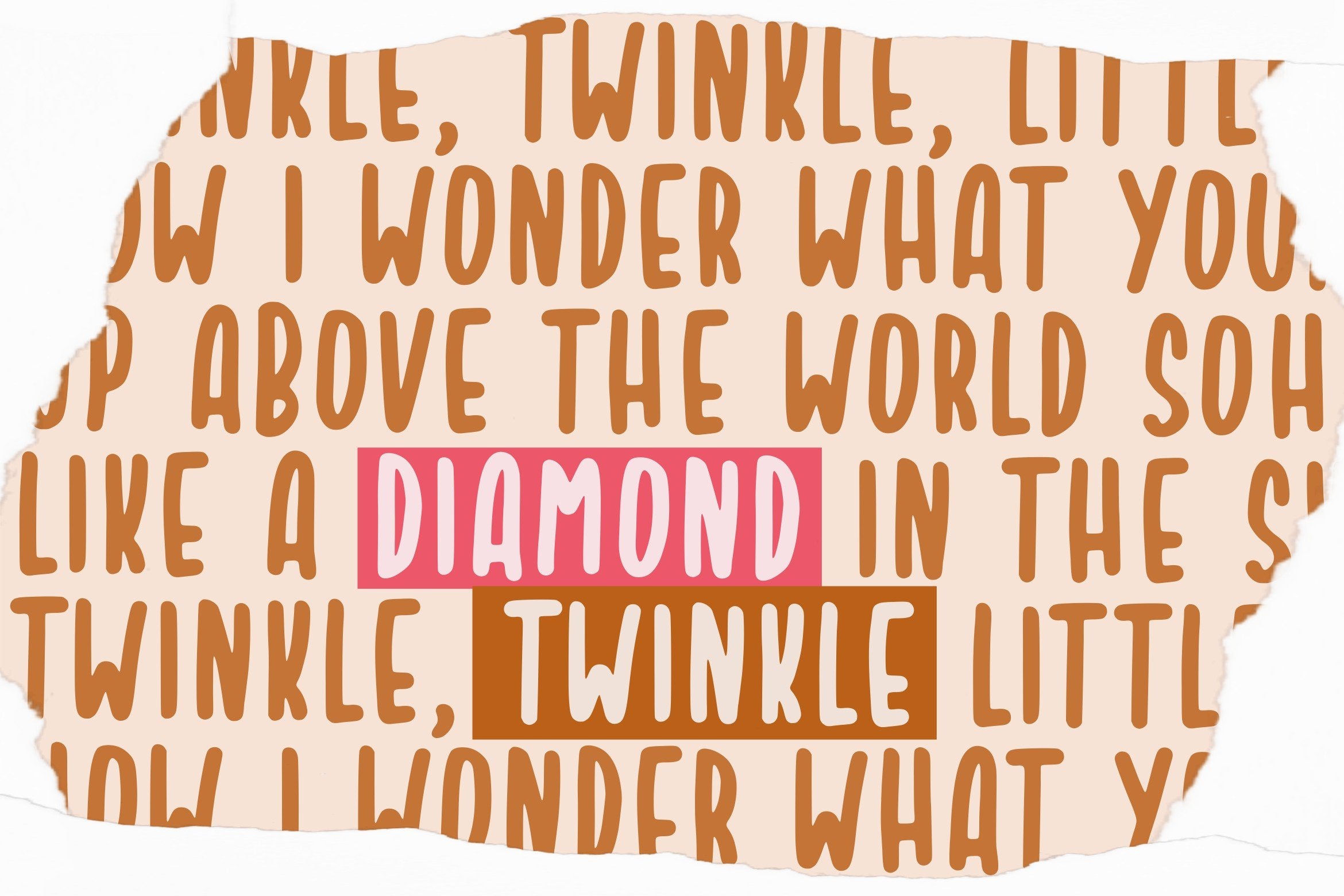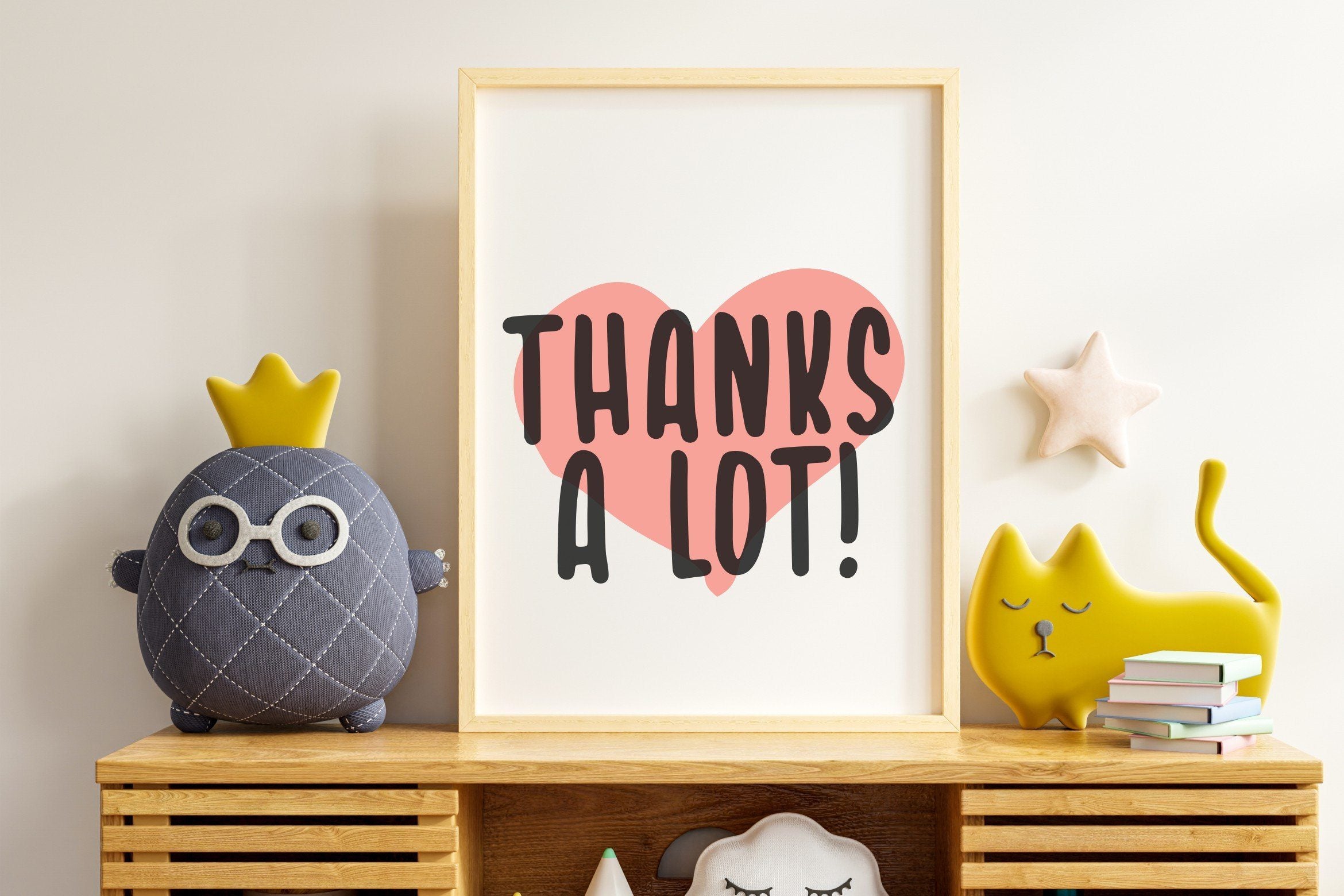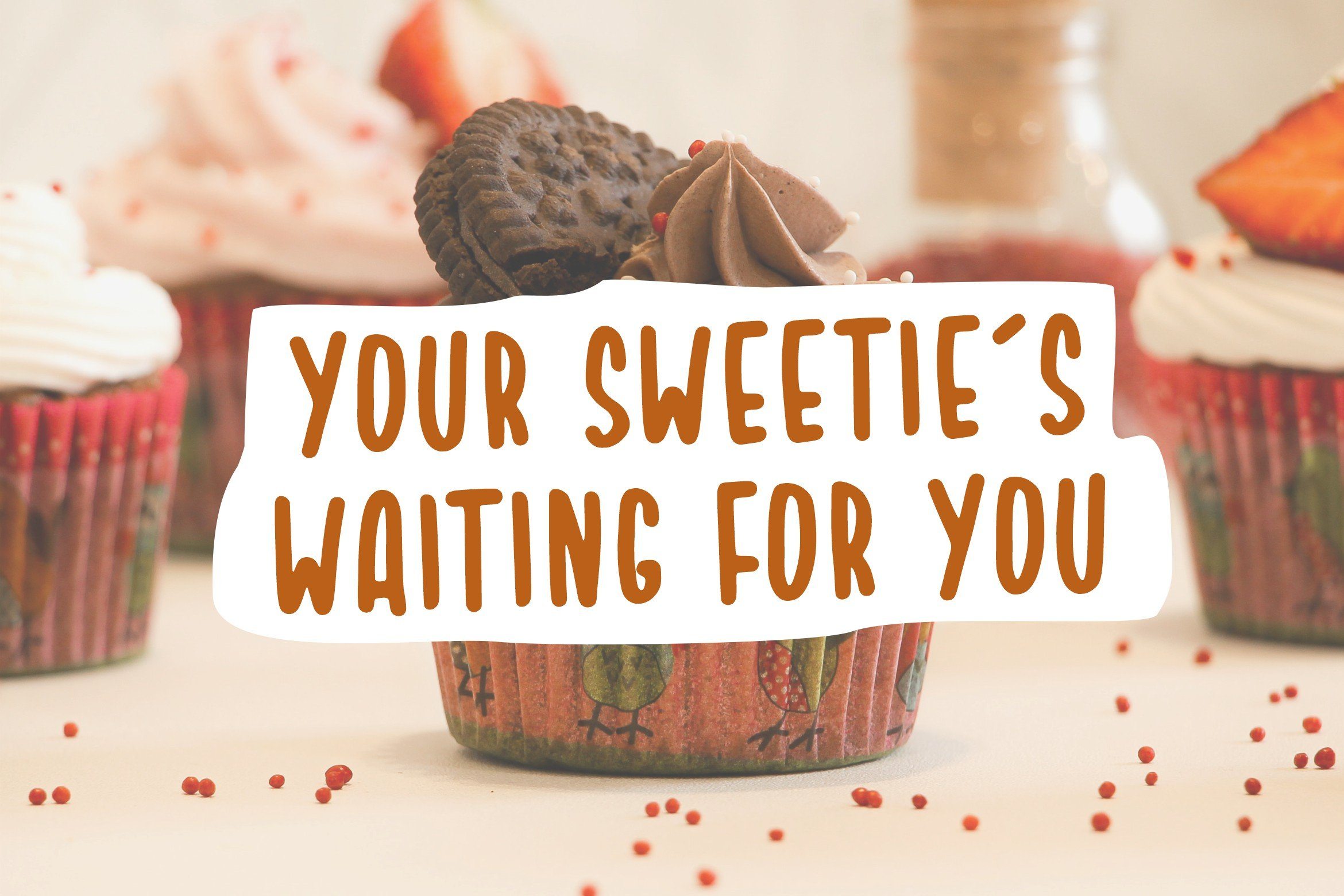
About Smilecake Cute Fun Handwritten Font
Introducing by Balpirick Studio. Proudly Present, Smilecake Font. Smilecake is a Cute Fun Handwritten Font. Smilecake Cute is a neat and casual handwritten font. Whether you’re looking for fonts for Instagram or calligraphy scripts for DIY projects, this font will turn any creative idea into a true piece of art! This font includes TTF, OTF and WOFF, Smilecake also multilingual support. Enjoy the font, feel free to comment or feedback, send me PM or email. Thank you!